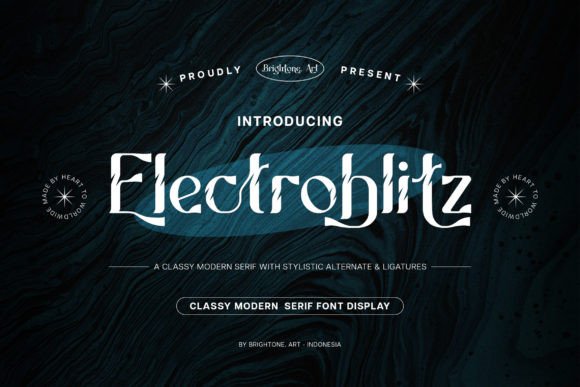
Journey into the world of Electroblitz, a modern serif font that exudes elegance and sophistication. With its graceful strokes and timeless appeal, Electroblitz is the perfect choice for creating designs that leave a lasting impression.
Unleash your creativity and craft logos that radiate professionalism, labels that demand attention, and packaging that exudes a touch of luxury. Electroblitz's versatility extends to branding projects, where it effortlessly elevates your visual identity to new heights.
Transport yourself to the realm of event menus, where Electroblitz weaves its magic, transforming ordinary text into an extraordinary feast for the eyes. Its meticulously crafted glyphs and swashes add a touch of whimsy and charm, inviting your guests on a culinary adventure they won't soon forget.
With Electroblitz, the possibilities are endless. Its PUA encoding makes accessing the full range of glyphs and swashes a breeze, empowering you to effortlessly incorporate intricate details and stunning flourishes into your designs.
Electroblitz is more than just a font; it's an experience. Its timeless beauty and versatility make it the perfect companion for designers, crafters, and creative entrepreneurs who demand the best.
Don't settle for ordinary fonts that blend into the background. Embrace the brilliance of Electroblitz and watch your designs come alive with a touch of sophistication and timeless elegance.